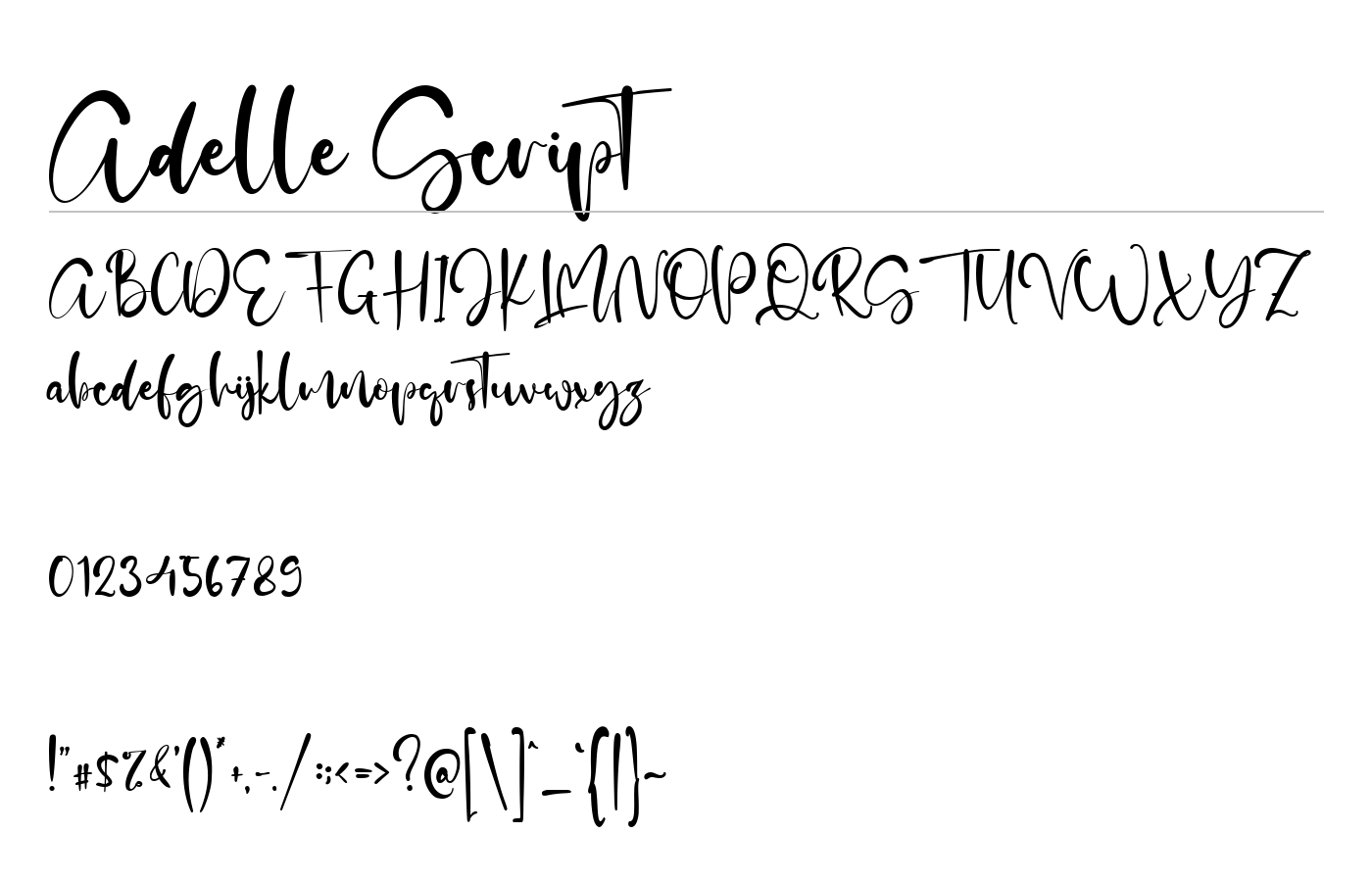
Adelle Script is a lively and elegant handwritten font with a playful, casual charm. Its varying stroke widths and unique letterforms give it a personal, artistic feel, making it perfect for creative projects, invitations, branding, and any design seeking a friendly yet sophisticated touch. This font works well in headlines and logos where a warm, approachable, and stylish vibe is desired.
Adelle Script Font
About Adelle Script Font
| Font family | Adelle Script Font |